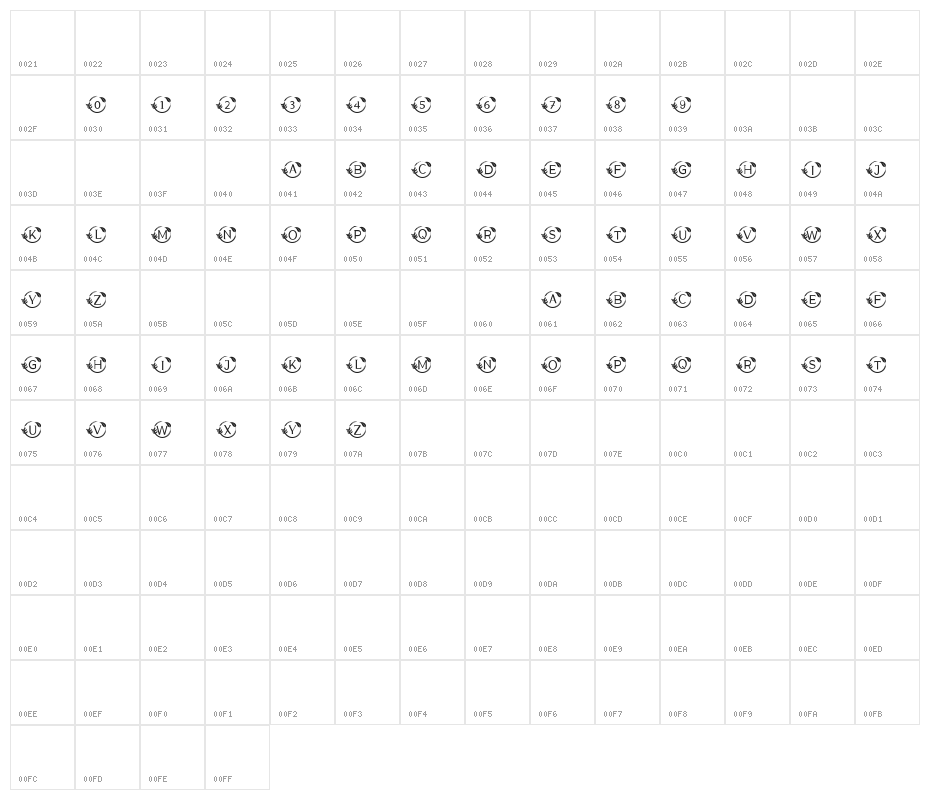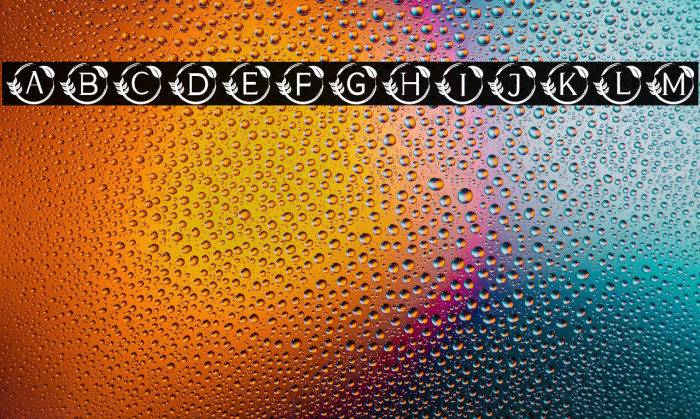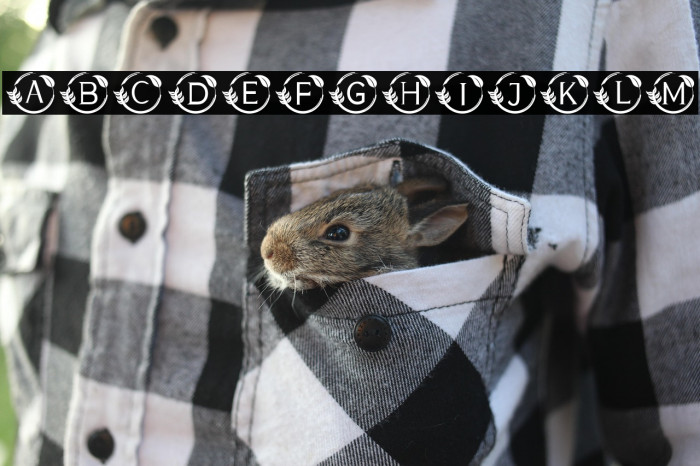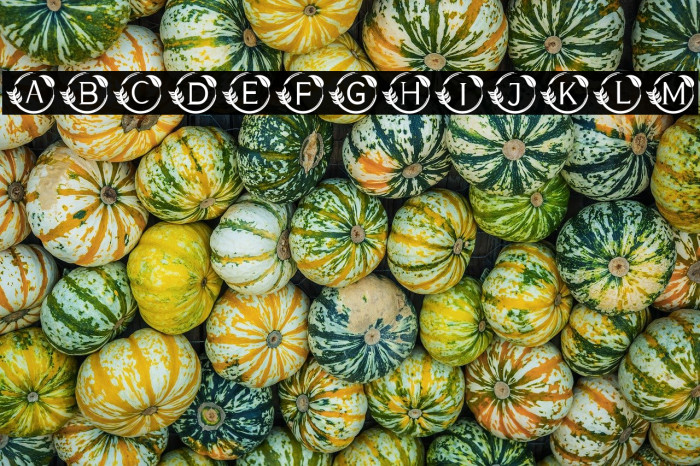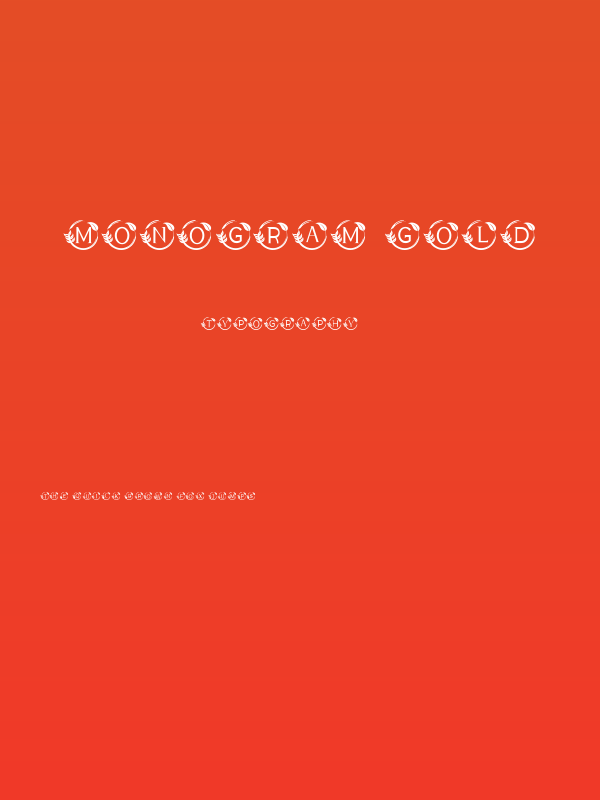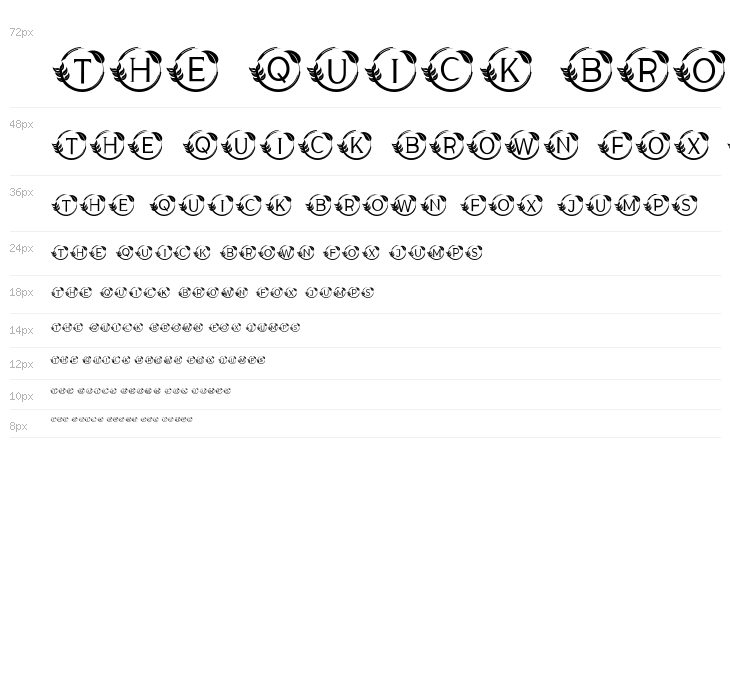
MONOGRAM GOLD Font
MONOGRAM GOLD Description
This decorative font features uppercase letters, numbers, and special characters encased in circular frames adorned with elegant leaf motifs on either side. The design exudes a sense of sophistication and luxury, making it ideal for formal and prestigious applications. The characters are bold and well-defined, ensuring readability while maintaining an artistic flair. The consistent use of circular frames and leaf embellishments creates a cohesive and visually appealing aesthetic, perfect for monograms, invitations, and branding that requires a touch of elegance.
| Use Case | Logos, Headlines, Monograms |
| Proposed Projects | Ideal for wedding invitations, luxury branding, monograms, and decorative signage. |